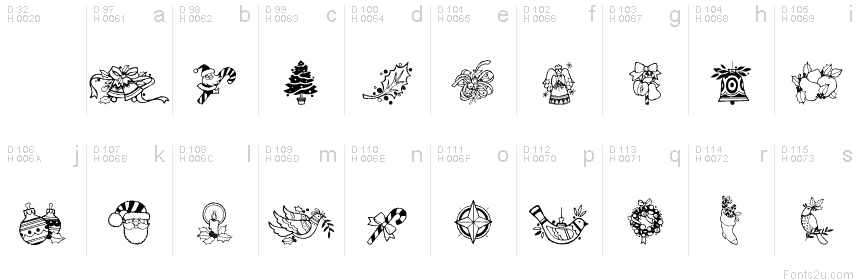
GE Christmas Joy
GE Christmas Joy font by Graphx Edge is a free decorative dingbat typeface that drops a whole box of holiday ornaments right into your keyboard. Bold, inky silhouettes of bells, stockings, candy canes, greenery and wrapped gifts feel hand-drawn yet clean, so they reproduce crisply at both small and oversized scales. Each symbol has a warm, storybook charm-enough detail to feel festive, but not so much that they get muddy when printed on textured paper or low-res home printers.
Using GE Christmas Joy, it’s easy to scatter little icons across greeting cards, party invitations, worksheets, gift tags, scrapbooks, and social media graphics without opening an illustration app. The consistent line weight and solid fills mean these dingbats also work beautifully as pattern tiles on wrapping paper or holiday packaging. For a simple pairing, set your text in a plain sans serif and let this free font handle the sparkle as bullets, borders, or section breaks.